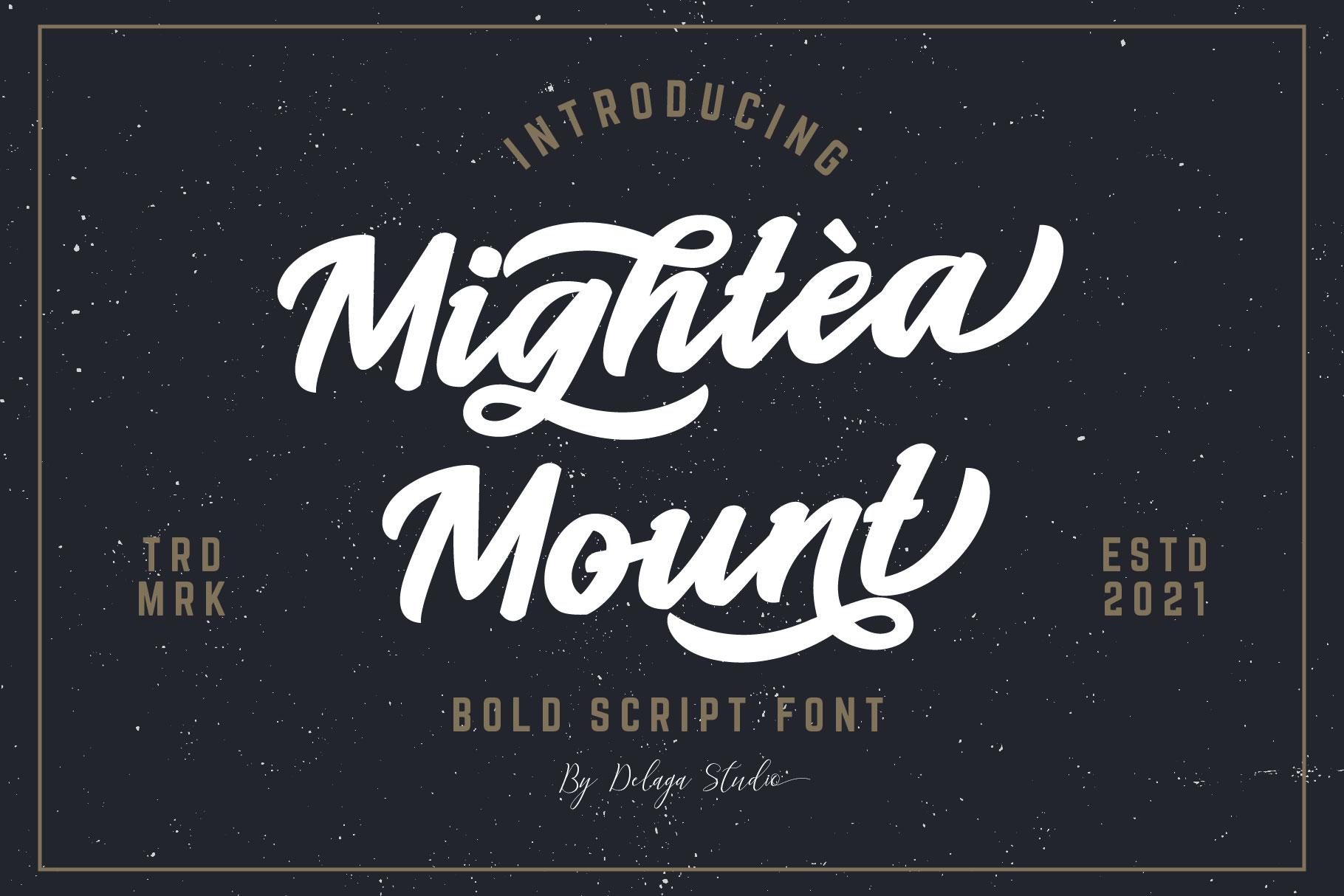
Mightea Mount Font Description
Mightea Mount is a retro and enchanting handwritten font. This versatile script font has a wide spectrum of applications ranging from greeting cards to headlines. Mightea Mount is PUA encoded which means you can access all of the glyphs and swashes with ease!